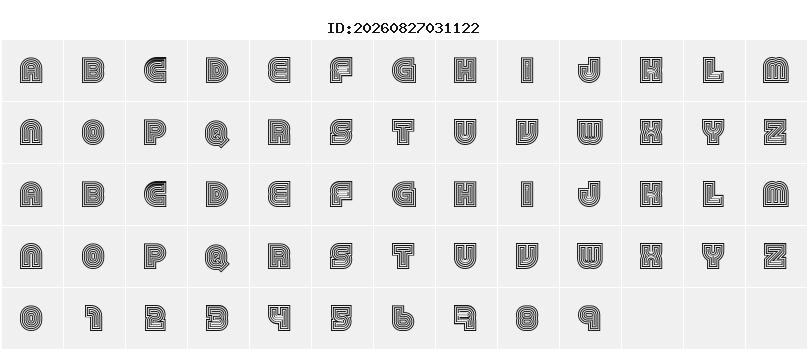
• Font Name: 79
• Font Style: retro
• Font ID: Macromedia Fontographer 4.1 79 retro
• Full Font Name: 79 retro
• Version: Macromedia Fontographer 4.1 18.6.2002
• PostScript Name: 79retro
• Character Count: 84
• Copyright: Generated by Fontographer 4.1
About 79.ttf
79.ttf is a modern, elegant sans-serif font designed for ultimate readability and visual harmony. Perfect for branding, headlines, web design, and print materials.